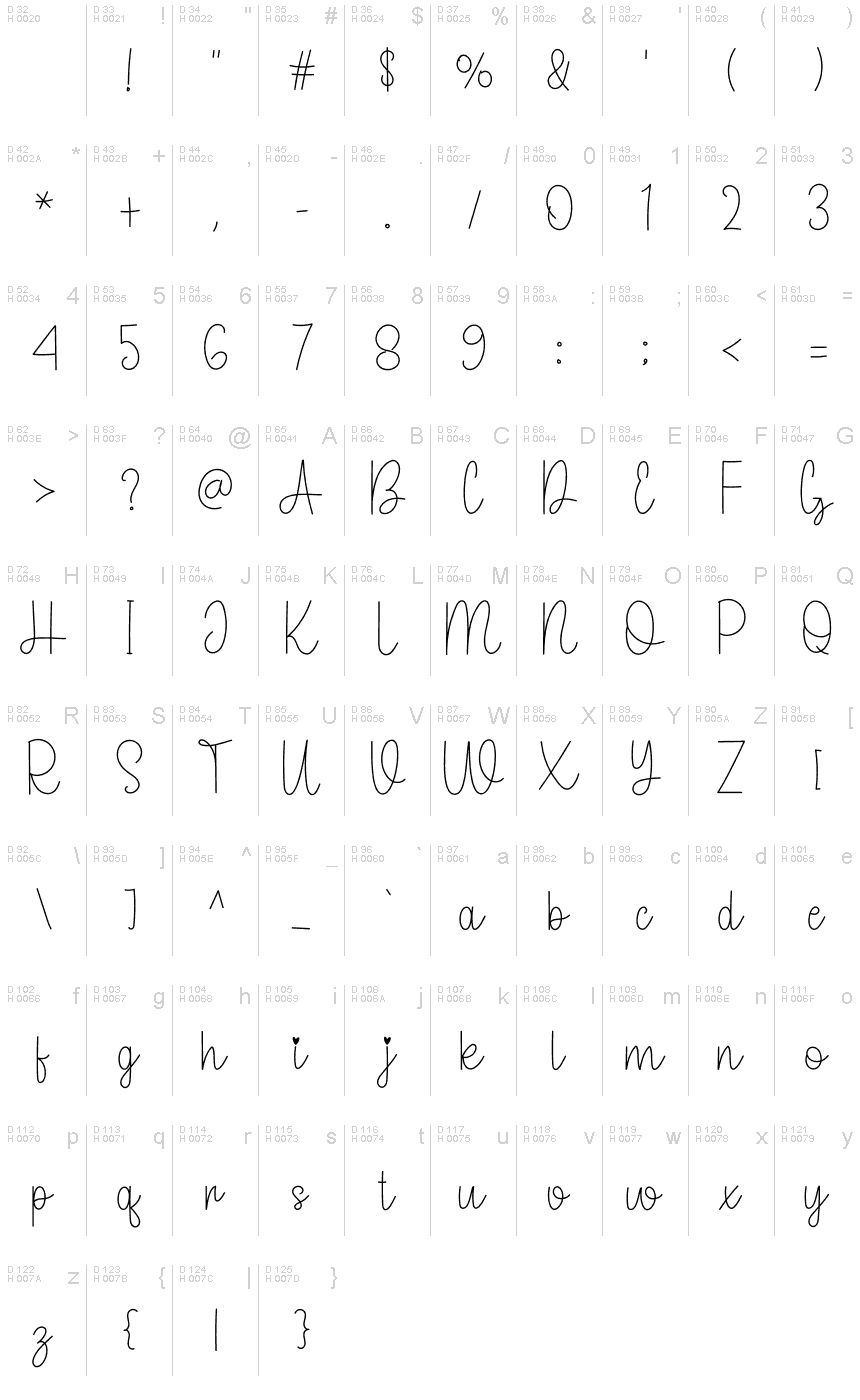
Moment
Discover the captivating charm of Moment, a delightful handwritten font designed by Belina Studio. With its extra-light weight, this font is perfect for adding a touch of elegance to any project. From wedding invitations to branding materials, Moment will make your message stand out with its playful and feminine style. Its flowing strokes and gentle curves evoke a sense of whimsy and romance that's sure to capture the hearts of your audience. Try it for fashion magazines, beauty blogs, or even children's books – Moment is versatile enough for any creative endeavor!